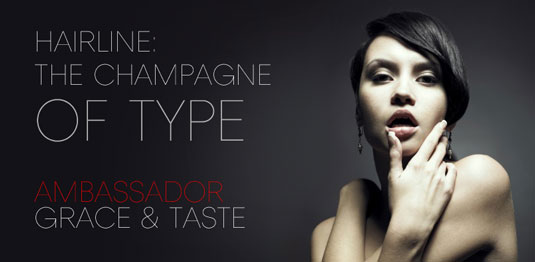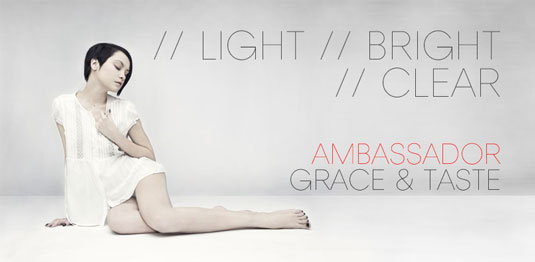
Font of the day: Ambassador
Ambassador by Juraj Chrastina
Add a touch of elegance to your designs with today's font of choice, Ambassador by type designer Juraj Chrastina. "Hairline display fonts are elegant and subtle with touch of luxury. Ambassador represents a classy typeface best suitable for magazines, cosmetics packaging, advertising or any kind of fine and sensitive design," Chrastina comments.